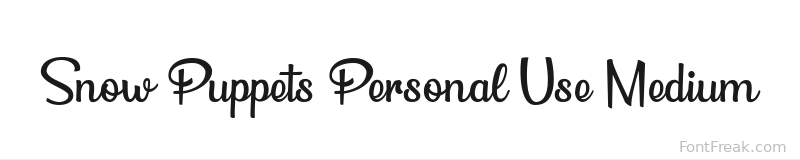
Snow Puppets Personal Use Medium
About Snow Puppets Personal Use Medium
Snow Puppets Personal Use Medium is a delightful handwritten font designed by Billy Argel Fonts. This decorative typeface showcases a playful and whimsical style, perfect for adding a touch of charm to your projects. With its medium stroke weight, the font strikes a balance between elegance and readability, making it versatile for various applications. The smooth curves and slightly irregular lines give it a handmade quality, while the ample spacing between characters enhances legibility, ensuring that your text stands out.
This font is particularly well-suited for a range of creative uses. It shines in wedding invitations, where its unique flair can convey a sense of joy and celebration. Additionally, it can elevate movie posters, adding an artistic touch that captures the viewer's attention. Restaurant menus can benefit from its inviting appearance, making dishes feel more appealing and approachable. Moreover, Snow Puppets Personal Use Medium is an excellent choice for greeting cards, allowing your messages to resonate with warmth and personality.
What sets the Snow Puppets Personal Use Medium font apart is its charming character and versatility. It stands out in a crowded font landscape, bringing a sense of whimsy that can transform ordinary text into something special. For those in search of a distinctive typeface, this font is a superb choice, and you can easily find the Snow Puppets Personal Use Medium font free download to get started on your next creative venture.